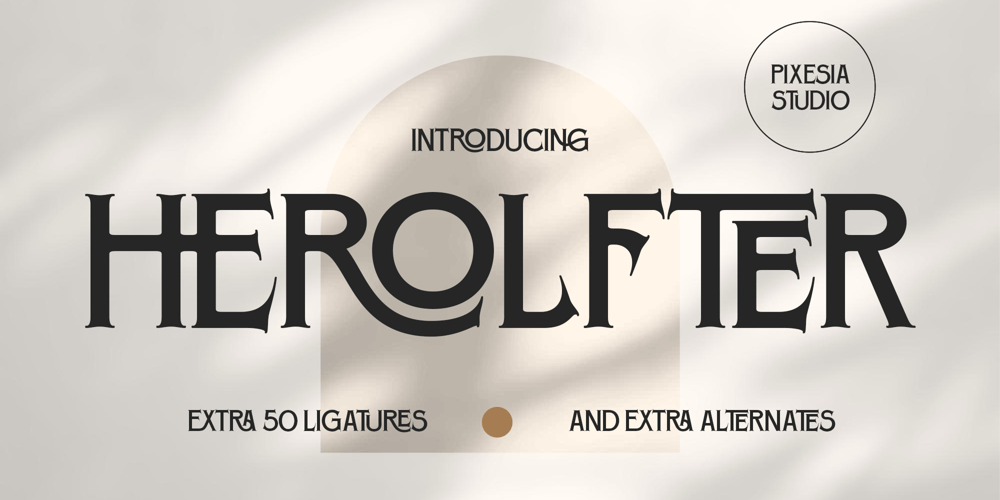
Herolfter
Herolfter Font Family was designed by Abul Almaududi and published by Pixesia Studio. Herolfter contains 1 styles and family package options. Introducing Herolfter – Modern Bold Display FontHerolfter, a sleek Bold Display Font with a modern edge. This versatile typeface boasts 55 ligatures, allowing you to add a unique touch to your designs. Herolfter is perfectly suited for branding projects, logo, social media posts, advertisements, product packaging, product designs, label, photography, watermark, invitation, stationery and any projects seeking unique taste.FEATURES- Stylistic Alternates- Ligatures- All Caps with Small Caps- Numbering and Punctuations- Works on PC or Mac- Simple Installation- PUA Encoded Characters – Easily accessible without additional design software.- Support Adobe Illustrator, Adobe Photoshop, Adobe InDesign, also works on Microsoft Word- Multilingual Support for 68 languages including Afrikaans, Albanian, Basque, Catalan, Danish, Dutch, English, Estonian, Faroese, Filipino, Finnish, French, Galician, German, Icelandic, Indonesian, Irish, Italian, Malay, Norwegian Bokmål, Portuguese, Spanish, Swahili, Swedish, ZuluHope you Like it.Thanks.